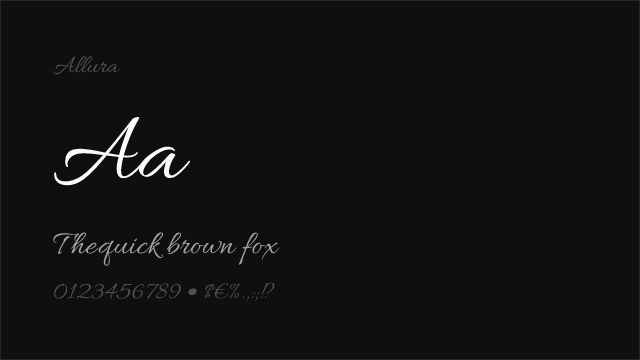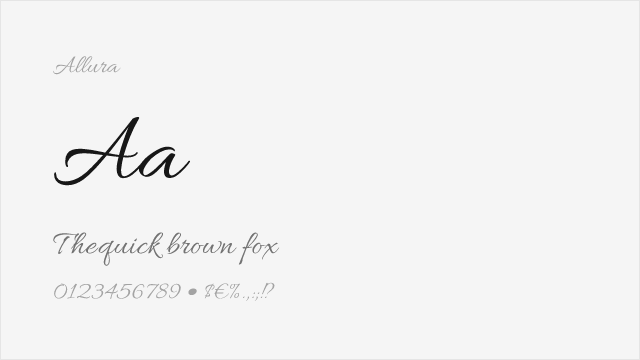
Free Alternatives to Beloved with Elegant Style
Beloved is known for its elegant aesthetic. If you're looking for a free display font with a similar elegant feel, these 3 alternatives offer comparable characteristics. We've identified 3 that are especially well-suited for this context. All are available under open-source licenses for unrestricted commercial use.
| Allura | 74 | 72% | 1 | No | OFL-1.1 | Google Fonts ↗ |
Engraved copperplate register, holds together better than most free scripts at moderate sizes.